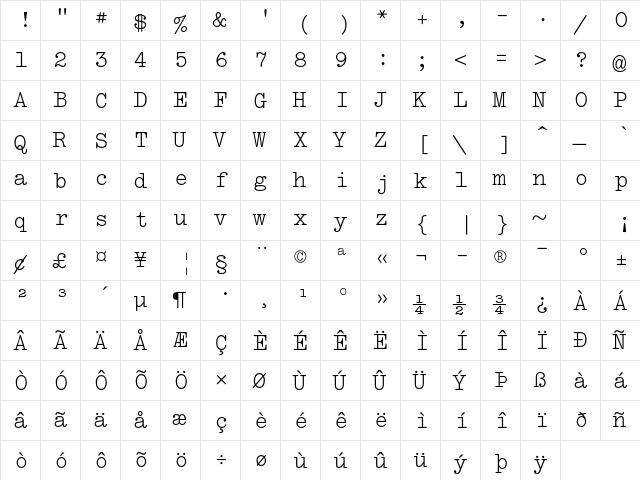
Typewriter MT Std Regular Font Preview
Typewriter MT Std Regular
Typewriter MT Std Regular Font Details
Design Context for Typewriter MT Std Typeface
Typewriter MT Std brings the precise, column-aligned rhythm of monospaced typography to designs that value technical clarity and systematic order.